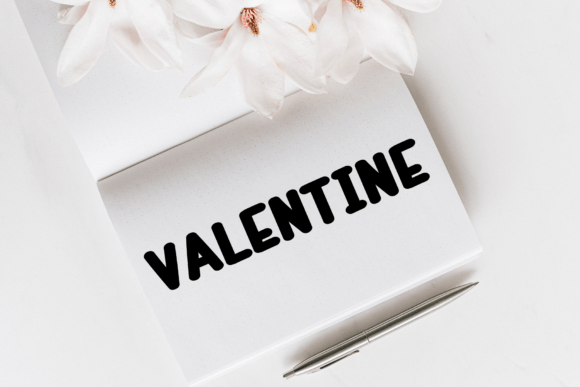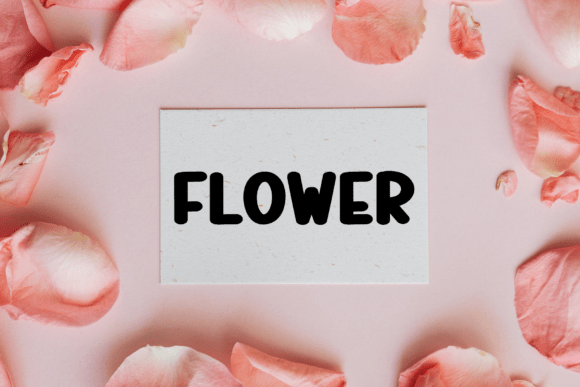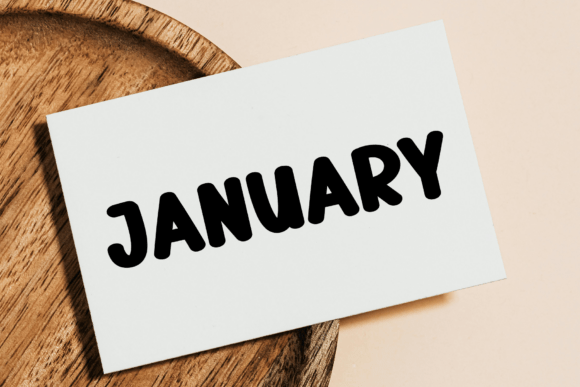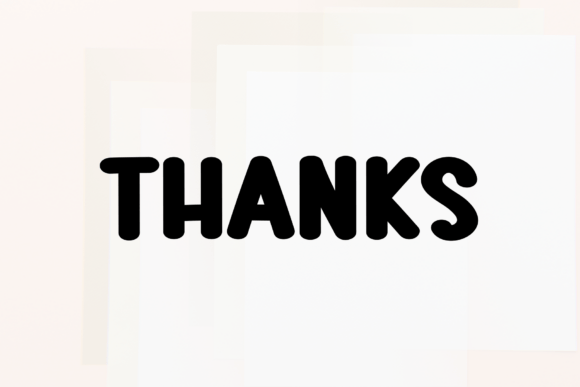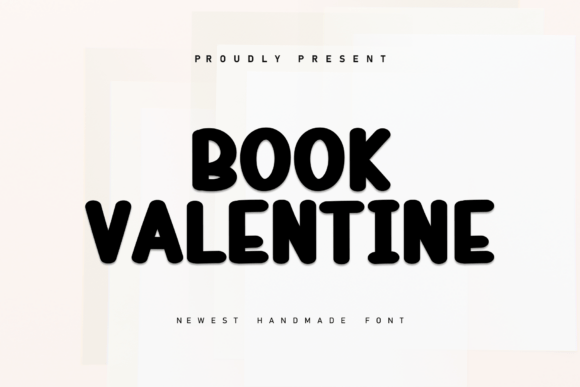
Introducing Book Valentine Font: The Perfect Handmade Typeface for Your Creative Projects
Are you looking for a font that can bring a bold, handmade heart to your work? Look no further than the Book Valentine font. This latest handmade typeface is characterized by its thick, rounded strokes and a cozy, bold-marker aesthetic that feels both modern and nostalgic. In this article, we’ll explore the features and benefits of the Book Valentine font, and how it can be used to elevate your creative projects.
A Bold and Versatile Typeface
The Book Valentine typeface offers a sturdy, dependable look with a touch of sweetness, making it a fantastic choice for projects that need to feel bold yet approachable and warm. Its heavyweight ensures that it stands out against even the busiest backgrounds, making it perfect for a wide range of applications. Whether you’re working on a children’s book, a social media campaign, or a marketing project, the Book Valentine font is incredibly versatile and can be used to create a variety of different effects.
Perfect for Valentine’s and Galentine’s Marketing
This Book Valentine typeface is particularly effective for Galentine’s or Valentine’s marketing that wants to avoid traditional thin scripts in favor of something more impactful and fun. The font’s bold and playful aesthetic makes it perfect for creating eye-catching headlines and titles that will grab attention and stand out from the crowd. Plus, its handmade feel adds a touch of warmth and personality to your marketing materials, making them more relatable and engaging.
The Book Valentine font can be used for a wide range of creative projects, from bold apparel prints to coffee mug designs, and even as a friendly headline for a community event flyer. Its versatility and flexibility make it a great choice for designers and crafters who want to create unique and eye-catching designs. Plus, it pairs beautifully with flat illustrations and solid, punchy color palettes, making it easy to create stunning and effective designs.
- Thick, rounded strokes: The Book Valentine font features thick, rounded strokes that give it a bold and playful aesthetic.
- Cozy, bold-marker feel: The font has a cozy, bold-marker feel that makes it perfect for creating handmade-style designs.
- Heavyweight: The font’s heavyweight ensures that it stands out against even the busiest backgrounds.
- Versatile: The Book Valentine font is incredibly versatile and can be used for a wide range of creative projects.
- Perfect for Valentine’s and Galentine’s marketing: The font’s bold and playful aesthetic makes it perfect for creating eye-catching headlines and titles for Valentine’s and Galentine’s marketing campaigns.
Here are a few tips and inspiration ideas to get you started with the Book Valentine font:
- Pair it with flat illustrations: The Book Valentine font pairs beautifully with flat illustrations, making it perfect for creating stunning and effective designs.
- Use it for bold apparel prints: The font’s bold and playful aesthetic makes it perfect for creating eye-catching apparel prints.
- Create a community event flyer: The Book Valentine font is perfect for creating friendly and approachable headlines for community event flyers.
In conclusion, the Book Valentine font is a versatile and effective typeface that can bring a bold, handmade heart to your creative projects. Its thick, rounded strokes and cozy, bold-marker aesthetic make it perfect for creating eye-catching designs that are both modern and nostalgic. Whether you’re working on a Valentine’s or Galentine’s marketing campaign, or just want to add a touch of personality to your designs, the Book Valentine font is a great choice.